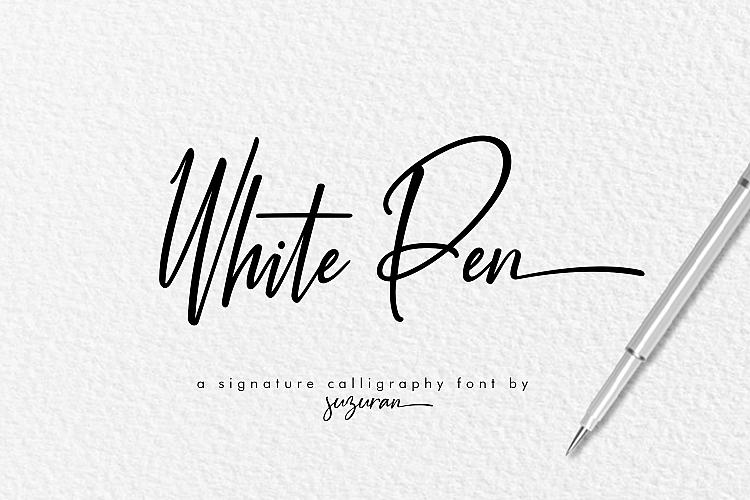
White Pen Script Font
Hi designer! I am happy to introduce you to a handwritten font. Introducing White Pen Font! It is designed by Suzuran. White Pen a font that is very fresh and unique style handmade + bonus font, Night in Kansas for your project. White Pen script is perfectly suited to logo, stationery, poster, apparel, branding, wedding invitation, card, tagline, layout design, and much more !!.